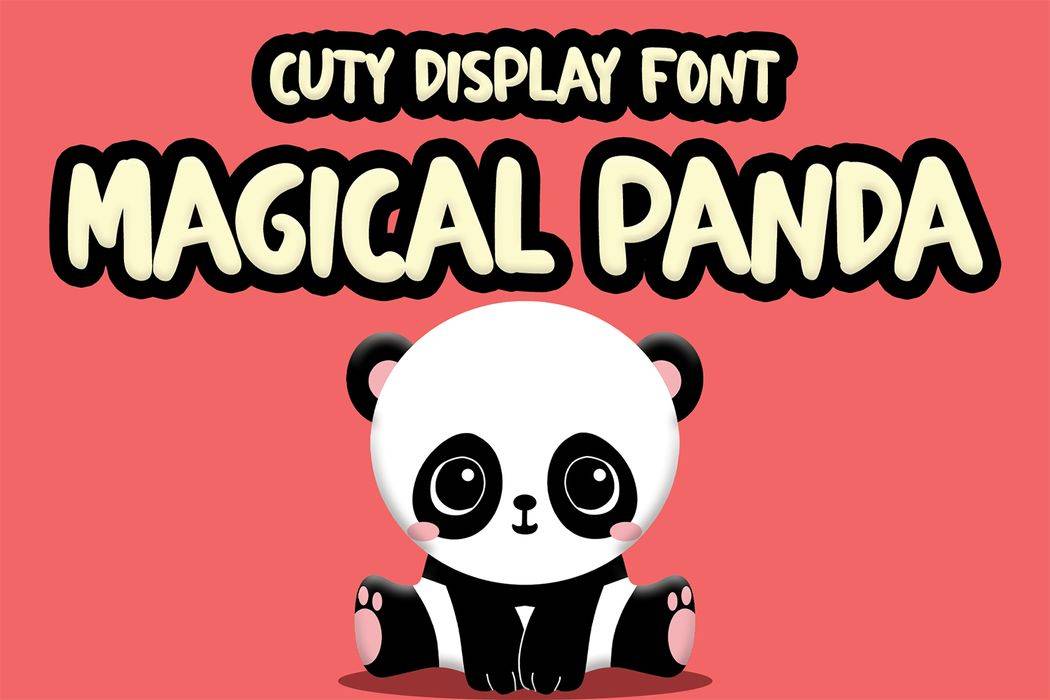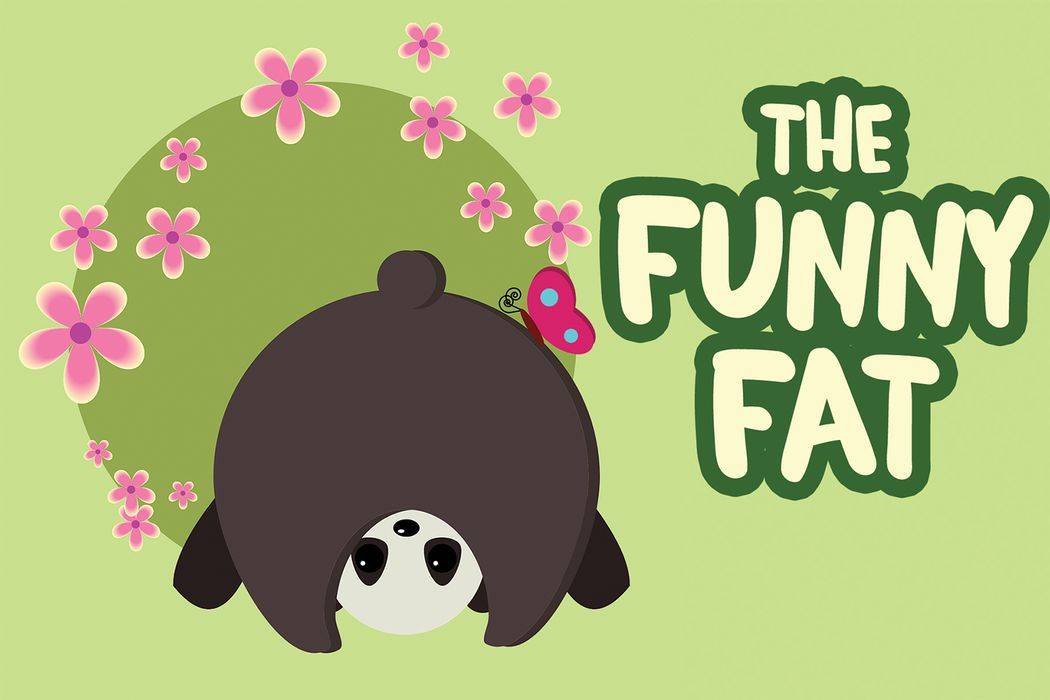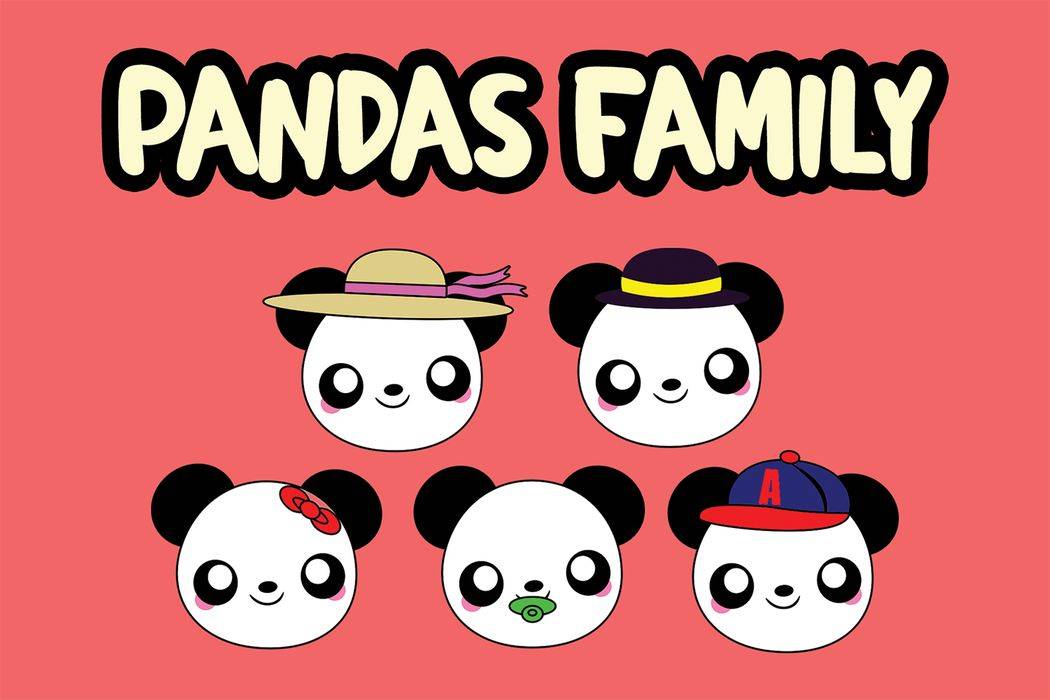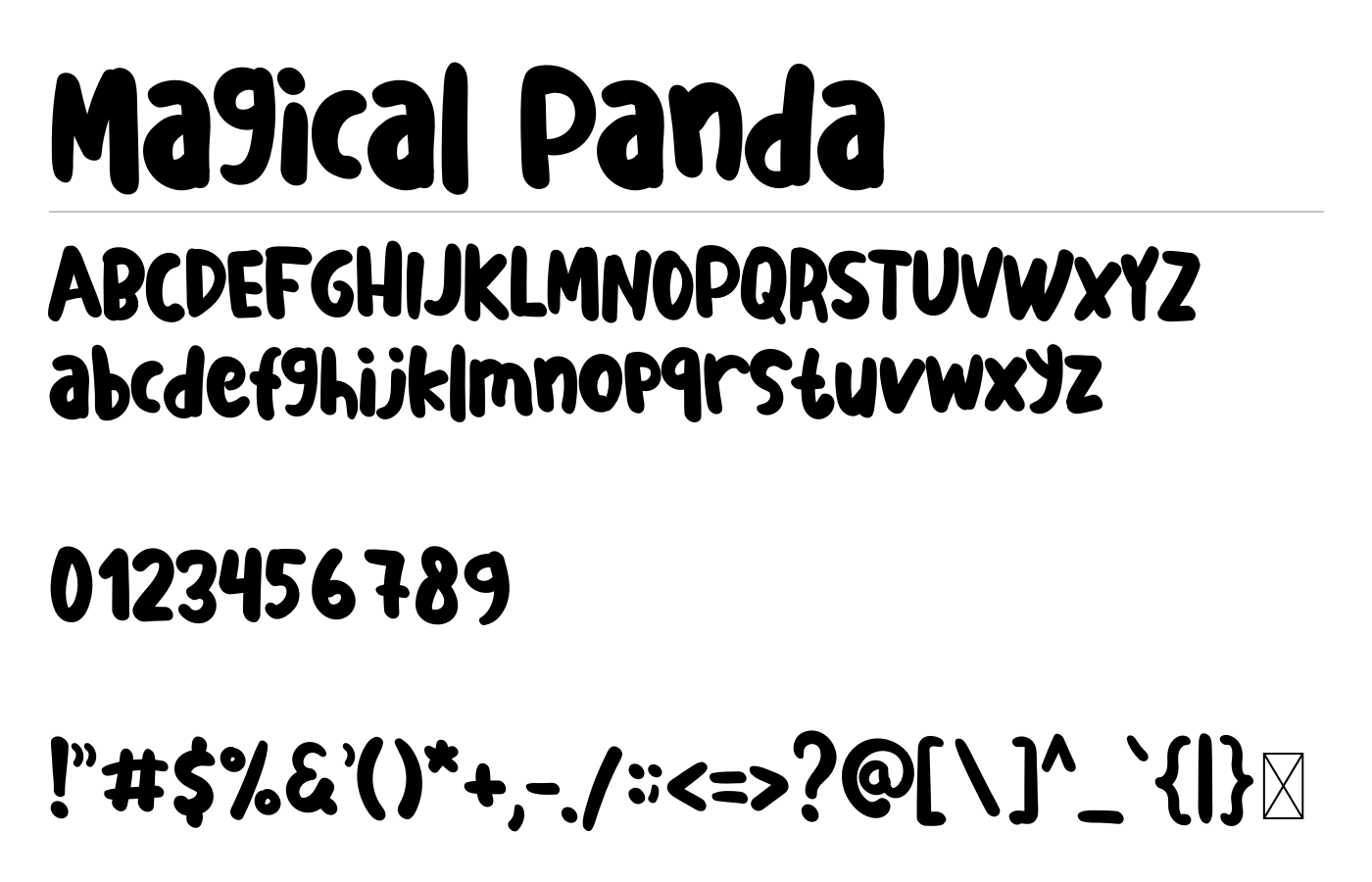
Magical Panda is a playful and bold sans serif font with rounded, hand-drawn letterforms that create a friendly and approachable feel. Its thick strokes, uneven shapes, and whimsical style make it perfect for children’s books, casual branding, and fun headlines where a lighthearted and informal tone is desired. This font works well in designs that need a touch of personality and charm without sacrificing readability.
Magical Panda Font
About Magical Panda Font